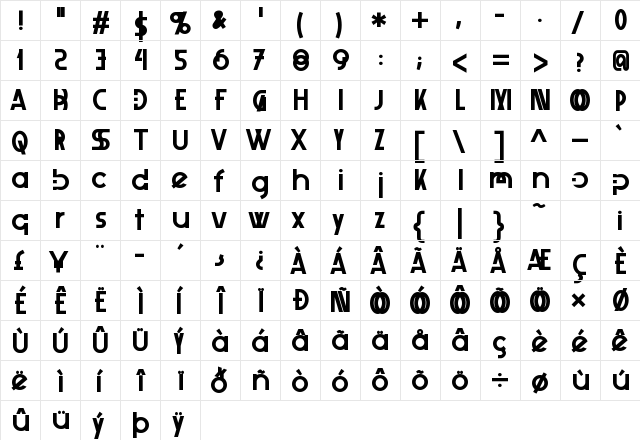
XelitaBold Regular
| Foundry | Xerographer Fonts |
| Designer | Max Infeld - Xerographer Fonts |
Design Context for XelitaBold Typeface
XelitaBold is a composed and adaptable typeface that performs quietly and consistently across a wide range of design contexts. The heavy weight commands attention and anchors typographic hierarchies.